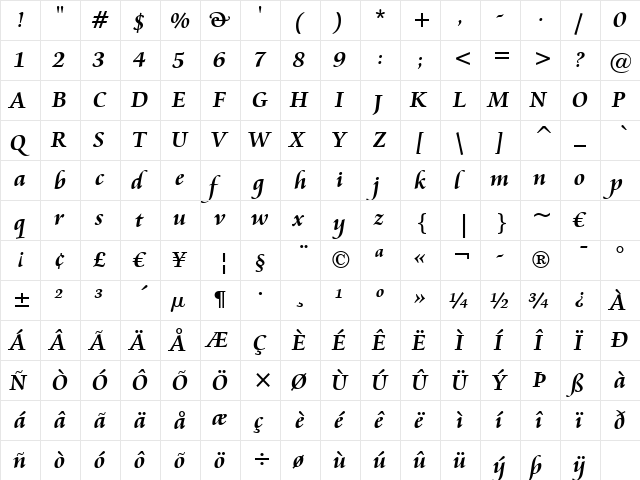
Cataneo BT Bold
Design Context for Cataneo BT Typeface
Cataneo BT takes a measured approach to typography — its balanced proportions and neutral character make it a reliable workhorse for both digital and print work. Its bold stroke weight gives it real presence on the page.